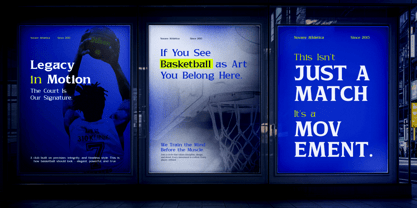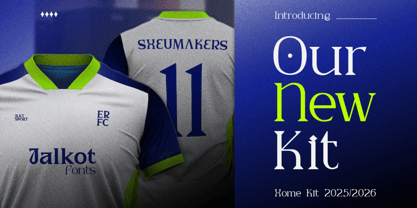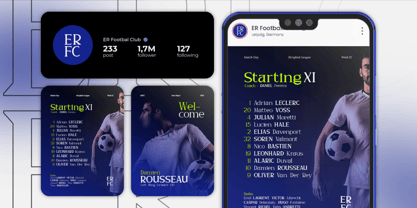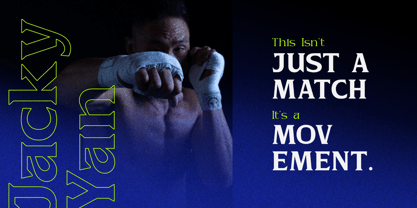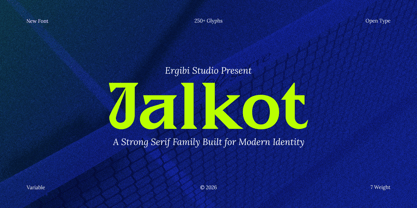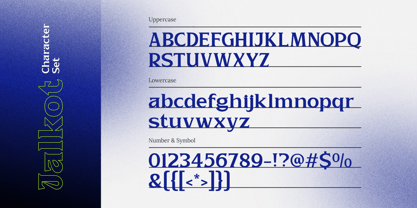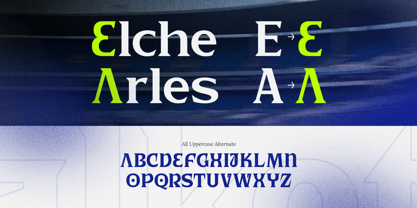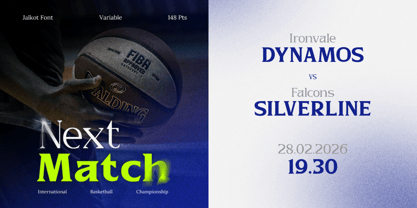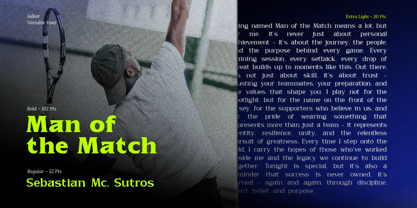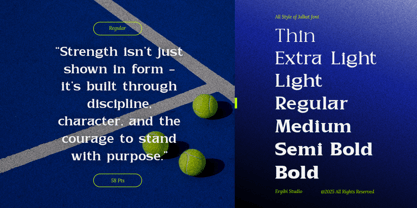
Jalkot
by Ergibi Studio
The Jalkot Font Family was designed by Riyadh Rahman and published by Ergibi Studio. Jalkot contains 7 styles and family package options.
Jalkot is a modern serif font family created to meet the demands of strong and contemporary branding. With seven thoughtfully crafted styles ranging from Thin to Bold, it offers the flexibility needed for a wide variety of design contexts—both expressive and functional. Designed with clean letterforms, sharp yet refined serifs, and well-balanced proportions, Jalkot achieves excellent readability while projecting a confident, professional character. Each weight is carefully tuned to work seamlessly with the others, making the family ideal for building clear typographic hierarchies, editorial layouts, and cohesive brand systems. Jalkot is built to perform reliably across both print and digital platforms. From logos and brand identities to editorial layouts, packaging, posters, and modern corporate materials, it provides a solid serif foundation with a contemporary edge